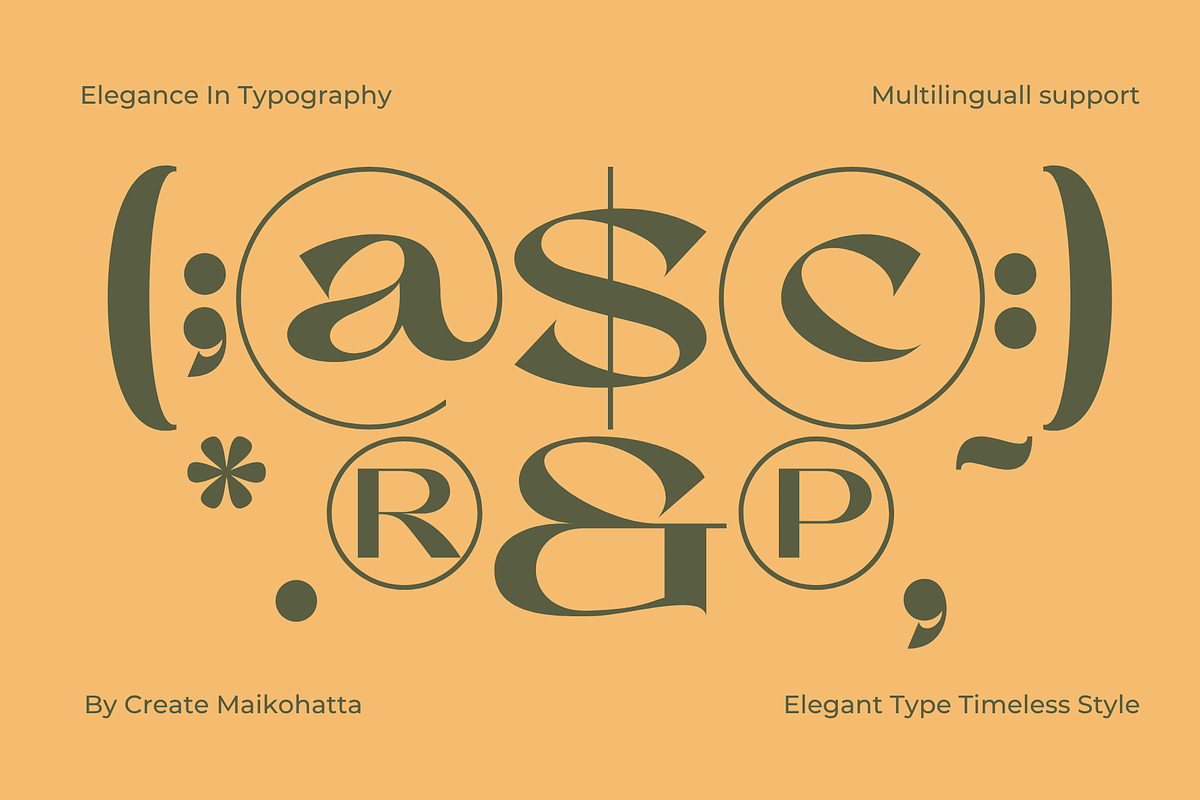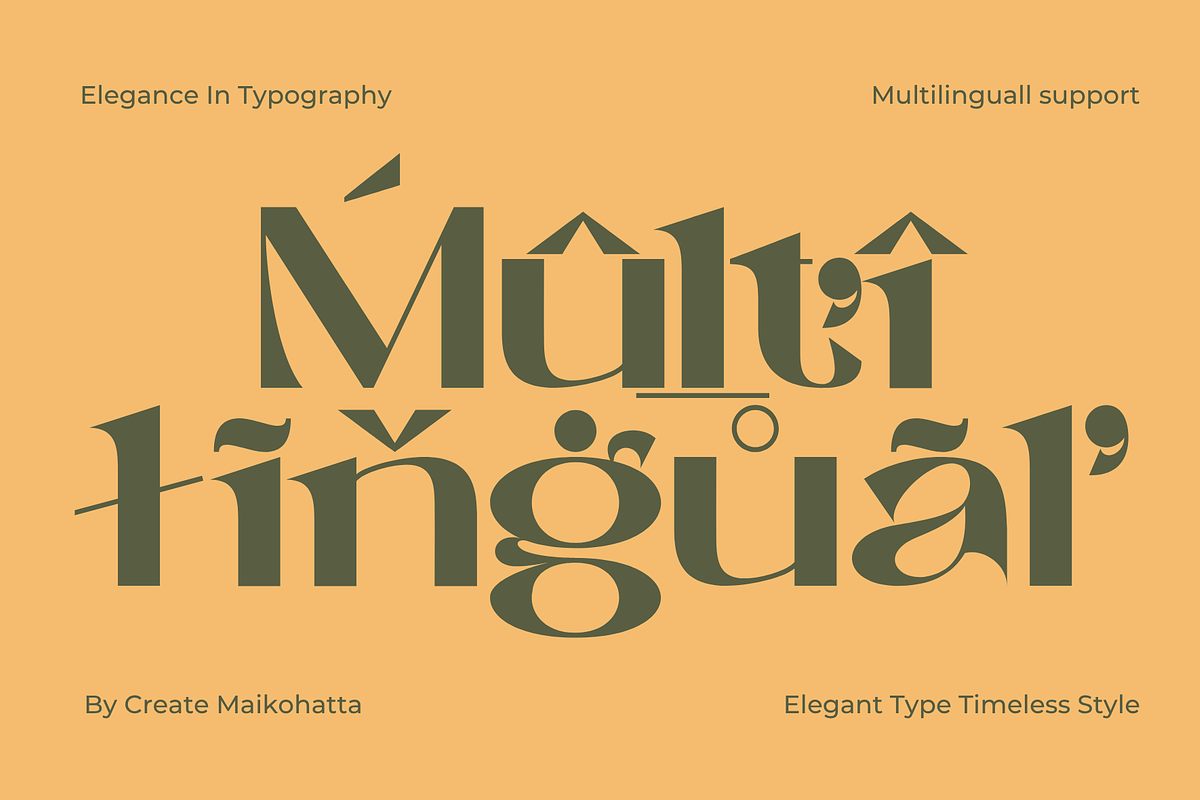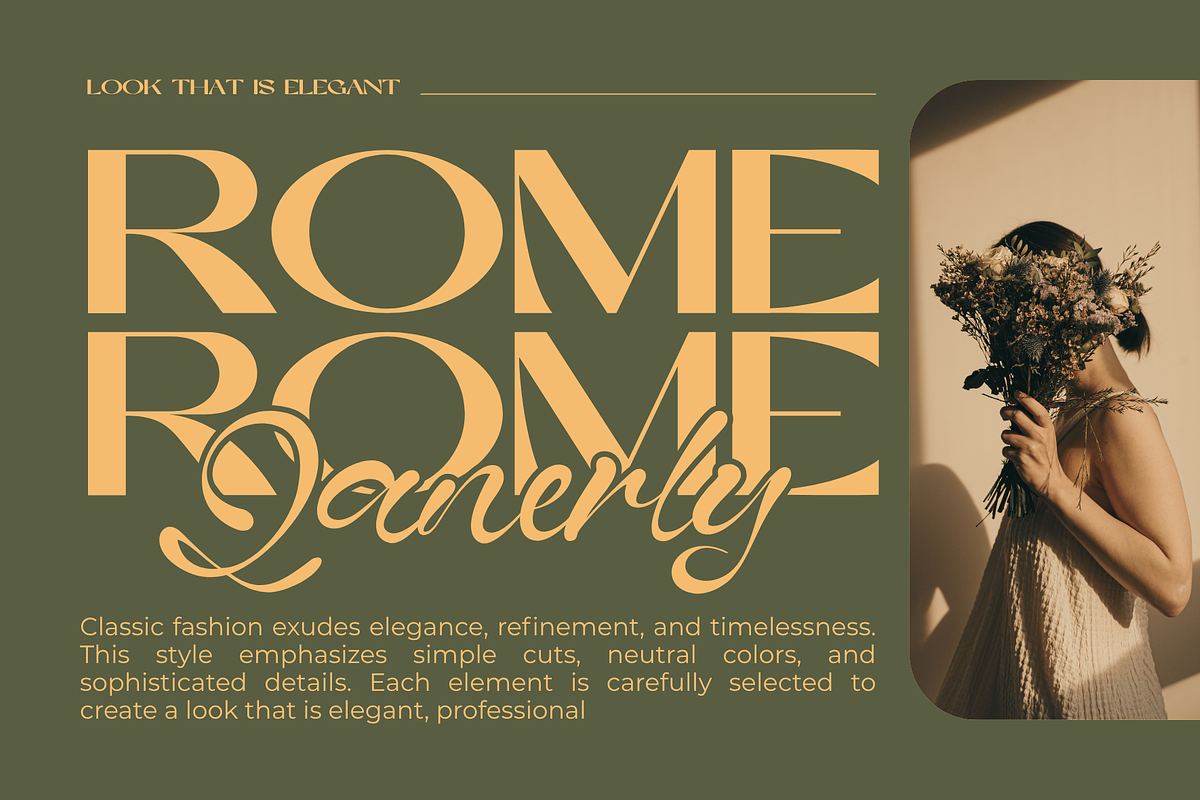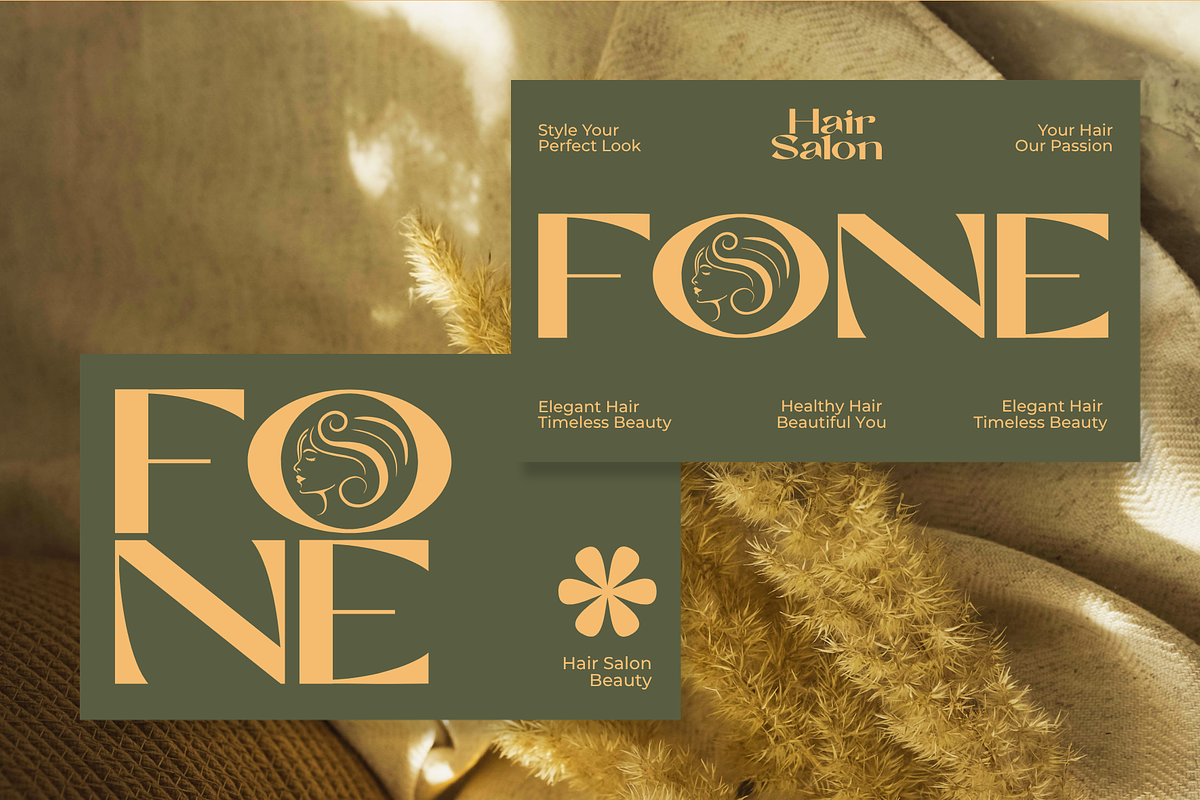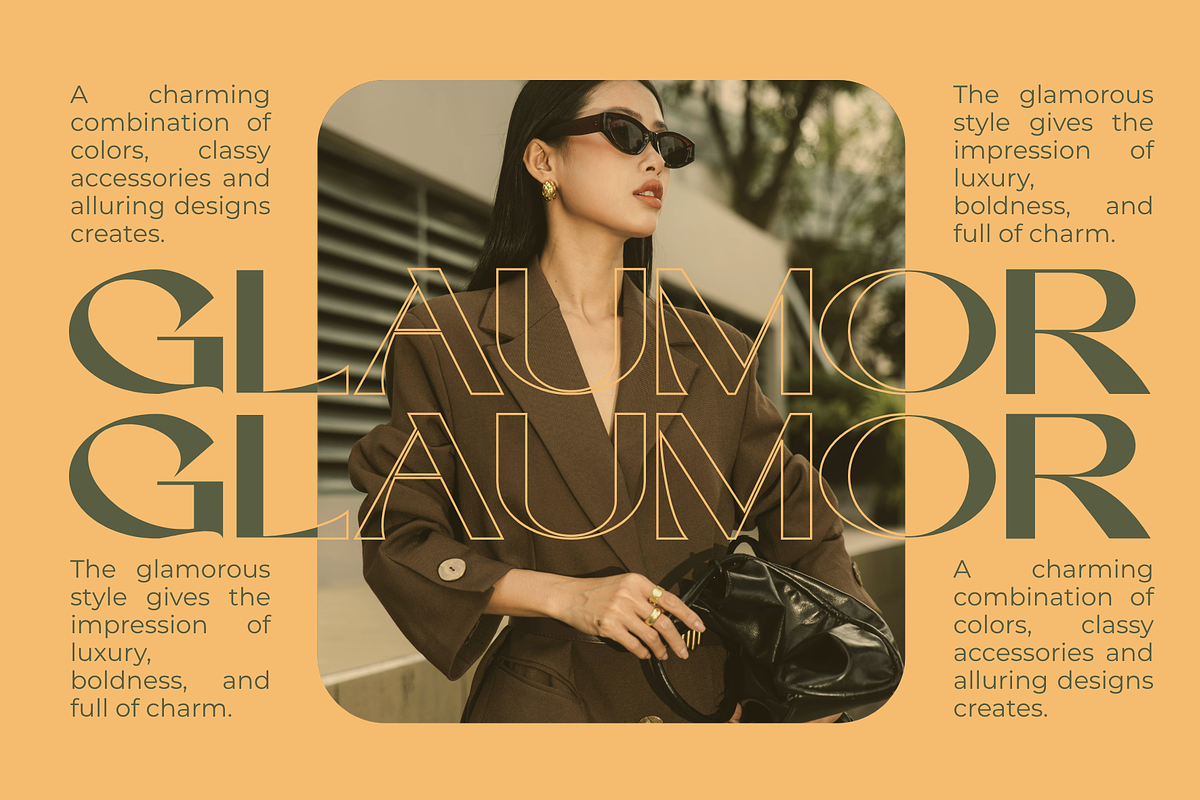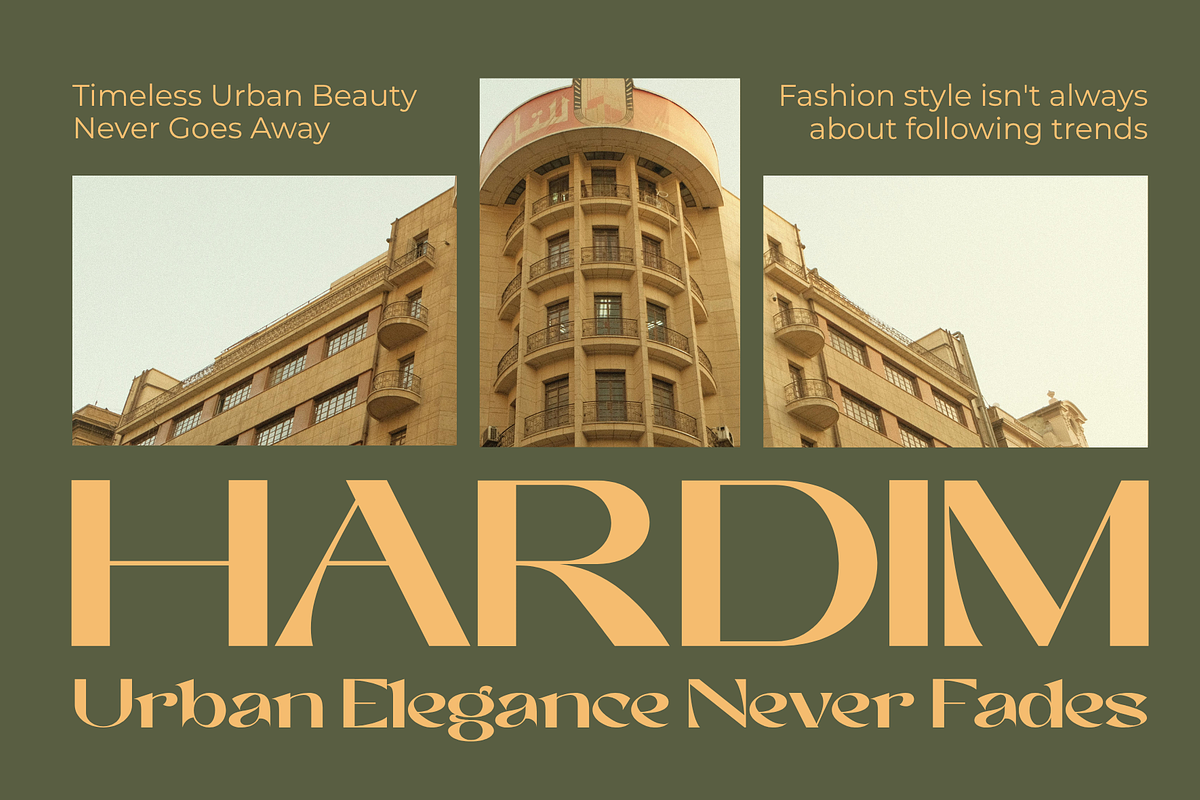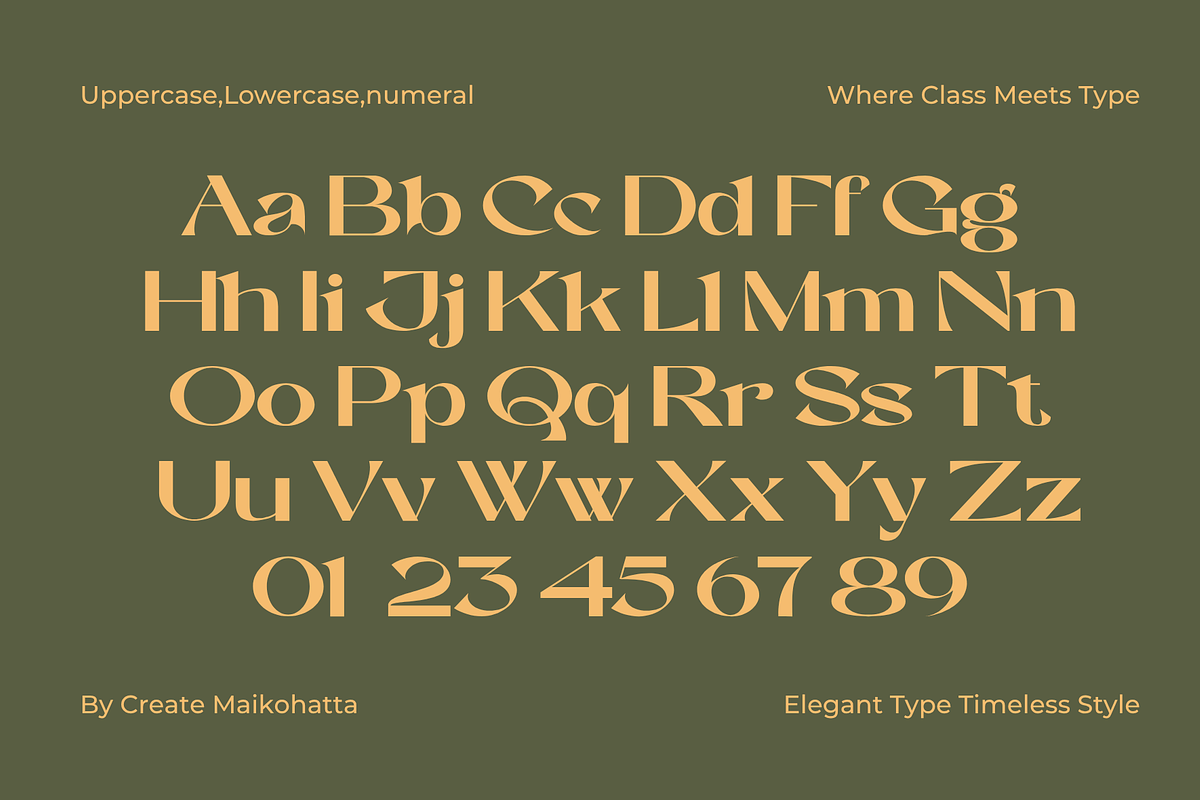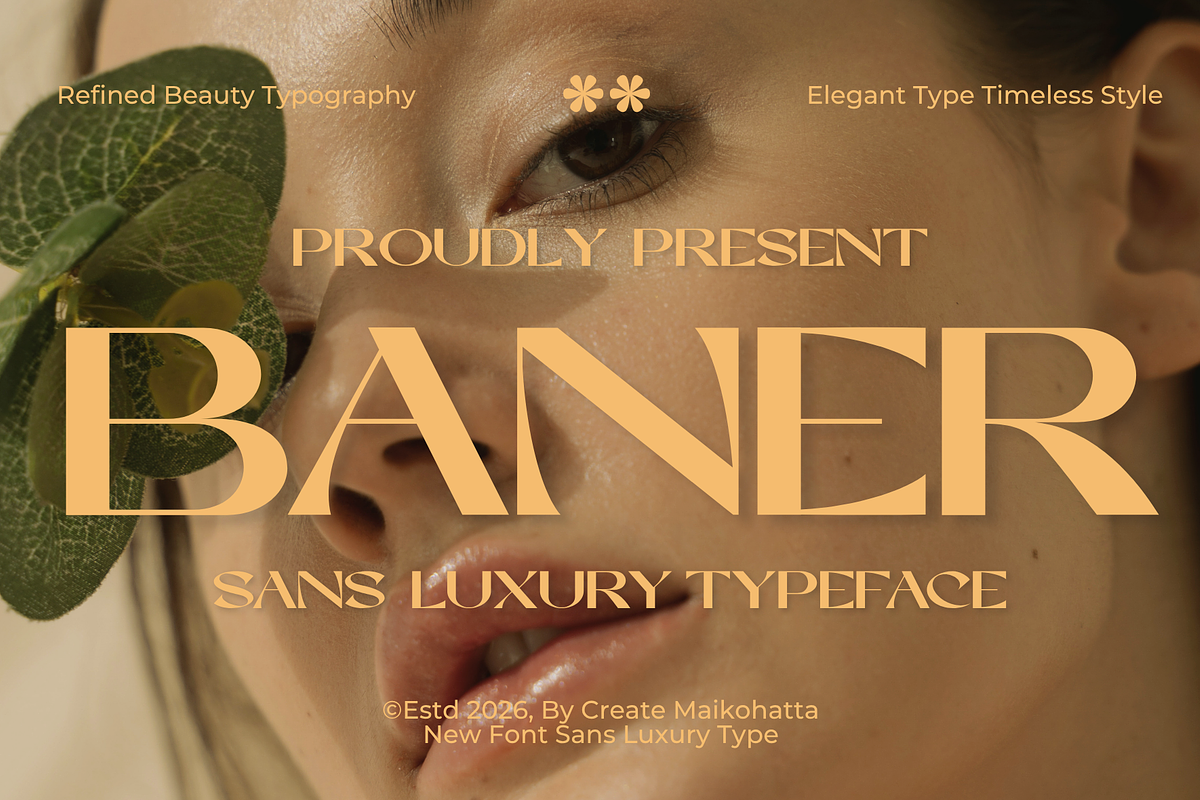
Baner - Sans Luxury Typeface
Introducing our new product Baner – Sans Luxury Typeface
Baner – Sans Luxury Typeface is a refined and sophisticated typeface crafted to bring elegance, modernity, and timeless beauty to your creative projects. Featuring clean lines, graceful proportions, and luxurious aesthetics, Baner delivers a premium visual experience that stands out across branding, editorial, and high-end design applications.
Designed with a perfect balance between contemporary minimalism and classic luxury, Baner is ideal for fashion brands, beauty products, cosmetics packaging, jewelry collections, wedding invitations, magazines, and upscale marketing materials. Its stylish letterforms create a strong visual presence while maintaining excellent readability, making it suitable for both headlines and display typography.
Whether you're building a luxury brand identity or designing an elegant publication, Baner adds a touch of sophistication and exclusivity to every project.